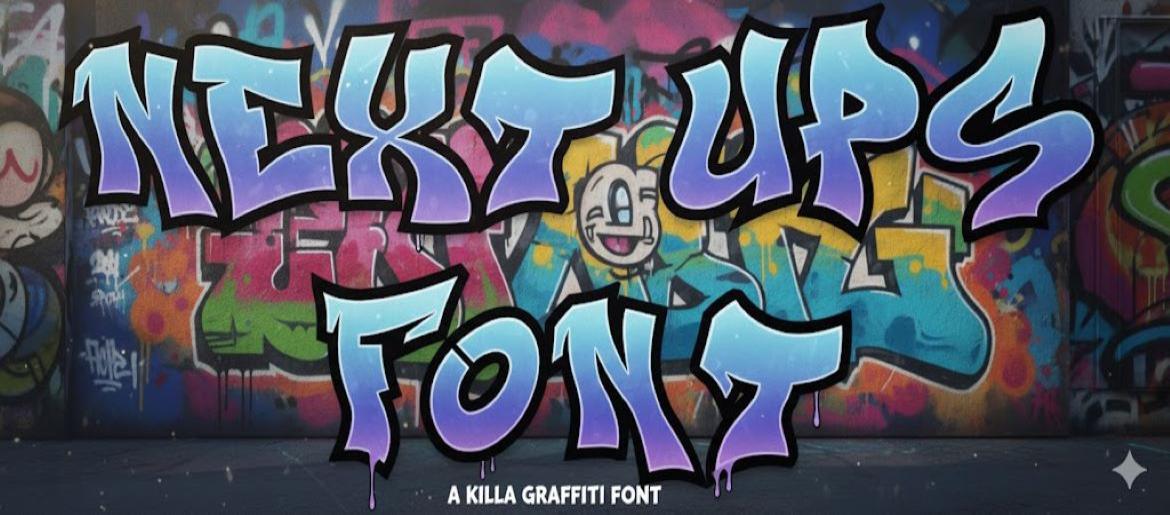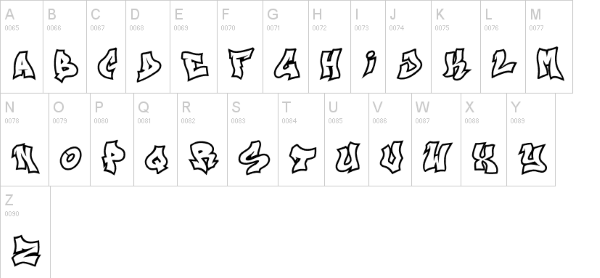
Next Ups
Next Ups Font
Next Ups Font is a bold graffiti-style typeface with edgy letterforms and urban street-art energy. Its expressive strokes and rugged character make it ideal for posters, logos, apparel graphics, skate culture designs, and any project that needs a raw, rebellious, and vibrant visual punch.
➤ Font Name: Next Ups
➤ Designer: Imagex
➤ Style: Graffiti
Next Ups font